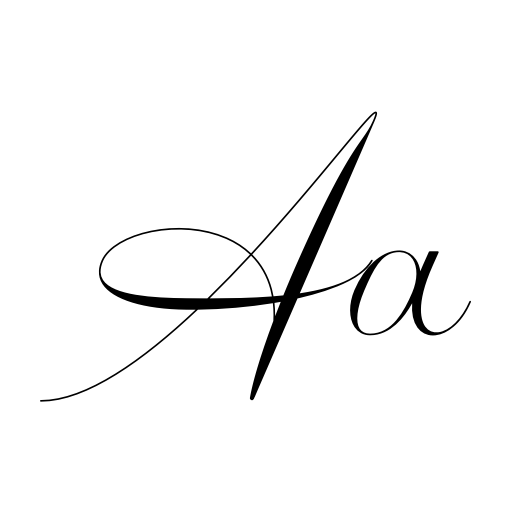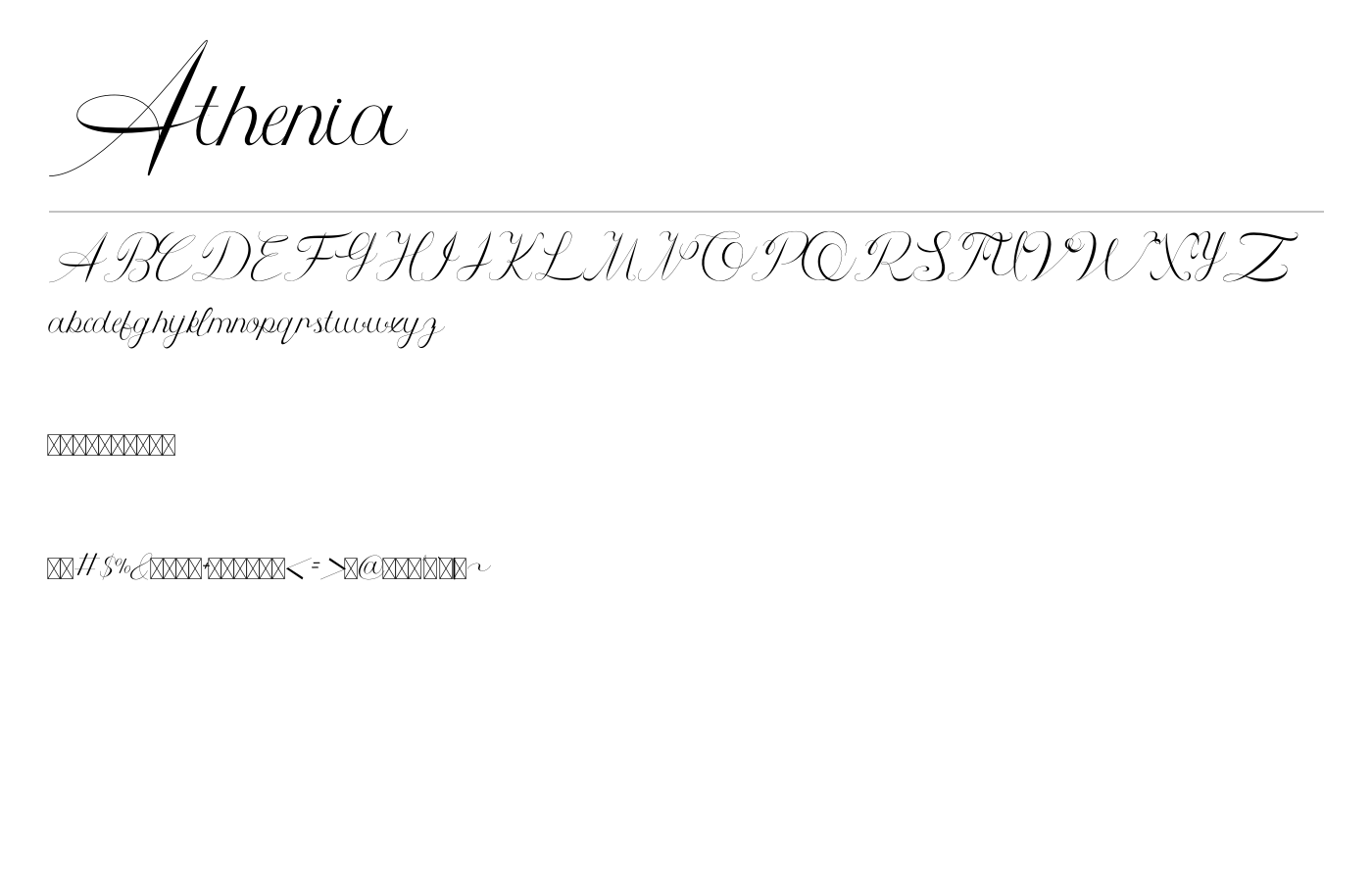
Athenia is an elegant, delicate script font characterized by its fine, flowing strokes and sophisticated swashes, giving it a graceful and refined appearance. Its high contrast between thin and slightly thicker lines, combined with slender letterforms and ornate capitals, makes it ideal for luxury branding, wedding invitations, and elegant editorial use where a touch of classic beauty and femininity is desired. This font works best in large sizes such as headlines or logos where its intricate details can truly shine.
Athenia Font
About Athenia Font